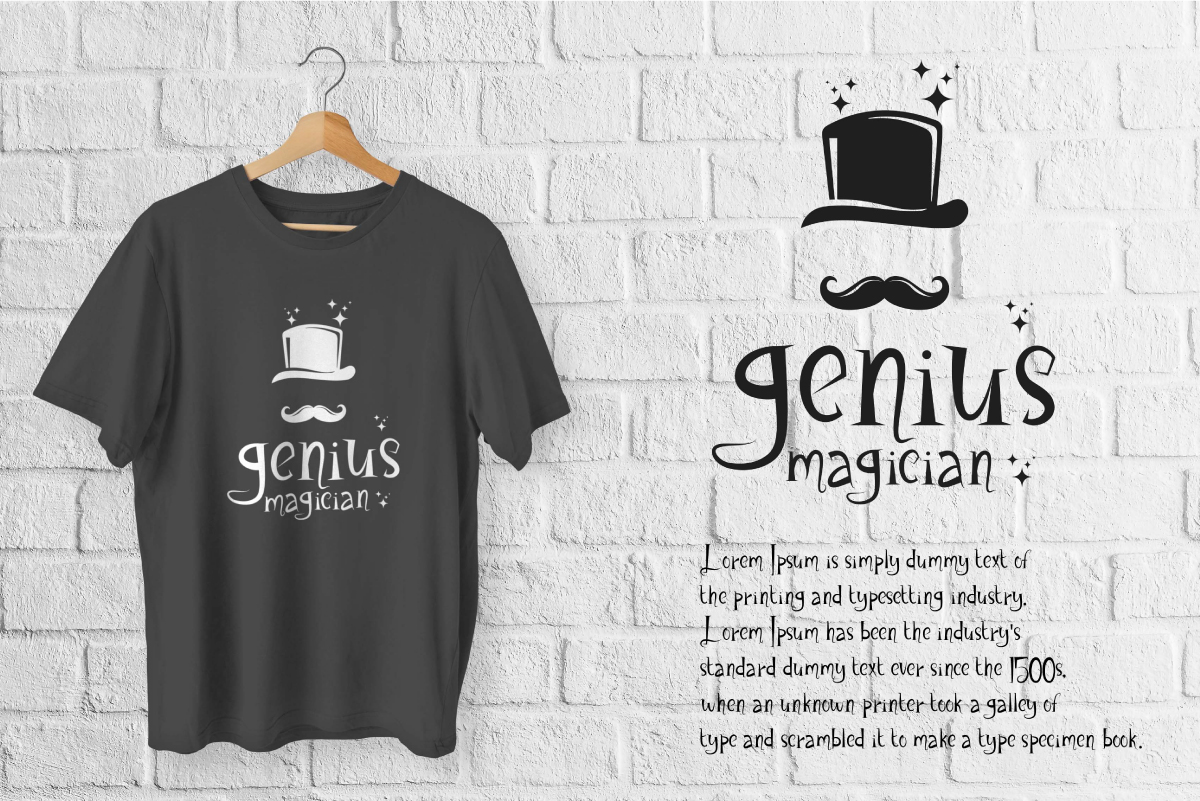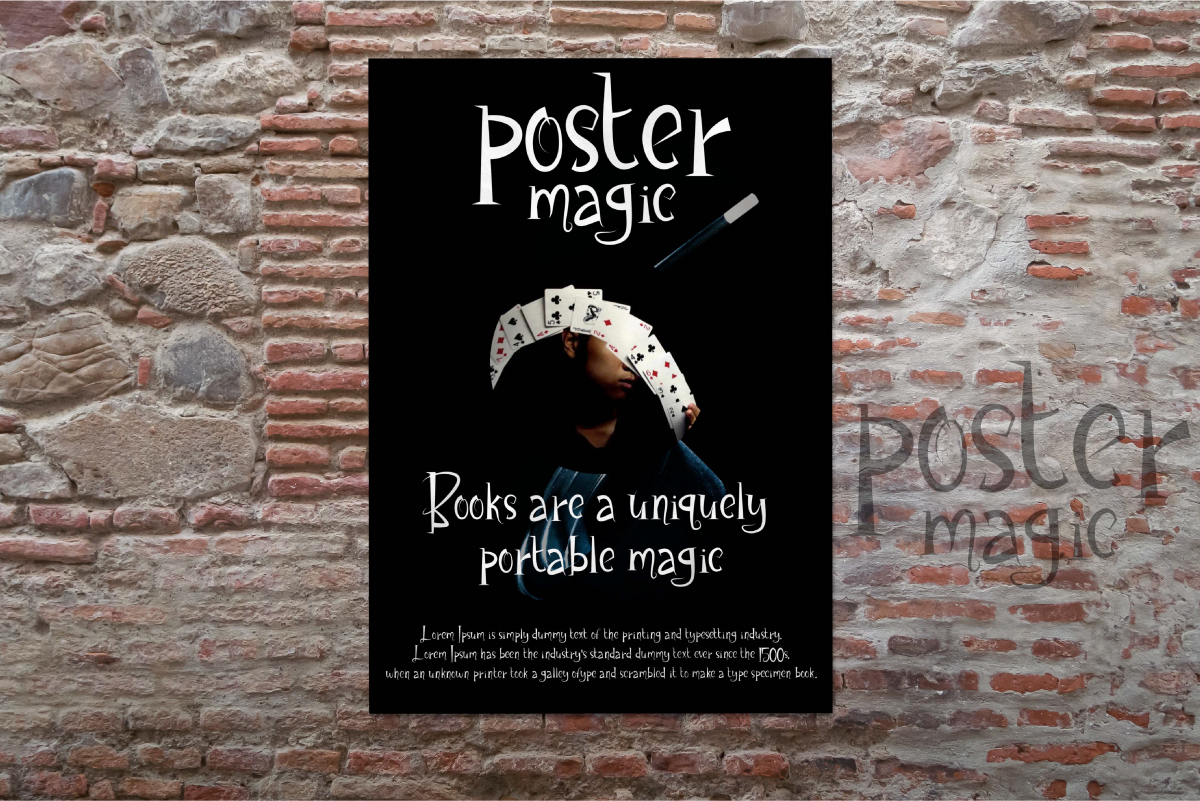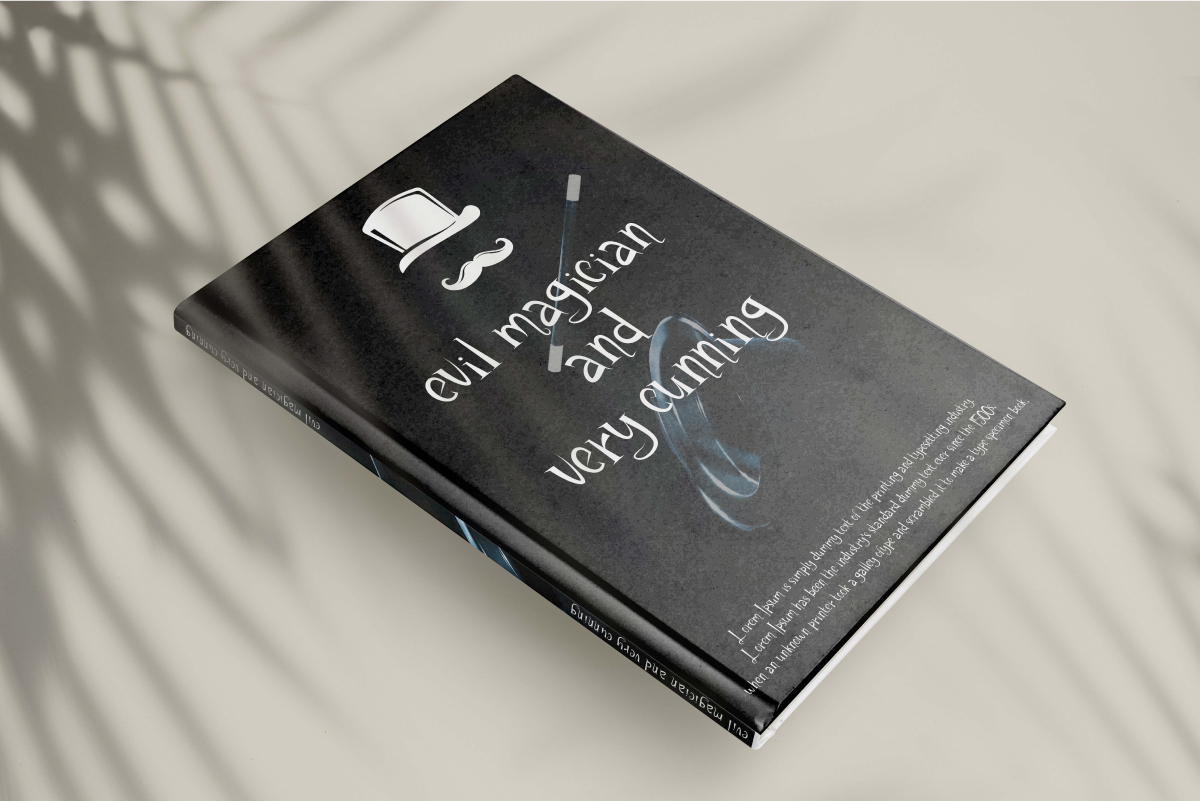
Magic Legends Font
Magic Legends Display Font
It’s a unique display font specially made for magic show or Halloween event inspired by magicians and witch but still trendy that can be adapted to modern things too. This font suitable for badge, café, game, headline, label, magician, making logo, movie, packaging, product design, poster, signage, special event or celebration, stationery, t-shirt design, title, and typography.